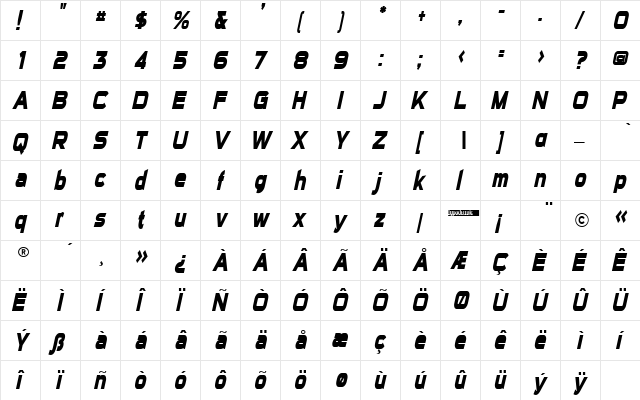
Sui Generis Condensed Bold Italic
Bold Italic · Typodermic Ray Larabie ·
Design Context for Sui Generis Condensed Typeface
Sui Generis Condensed takes a measured approach to typography — its balanced proportions and neutral character make it a reliable workhorse for both digital and print work. The dynamic lean of this cut emphasises speed and emphasis in any layout. Its bold stroke weight gives it real presence on the page. Its narrow stance lets it pack a punch even in space-constrained designs.